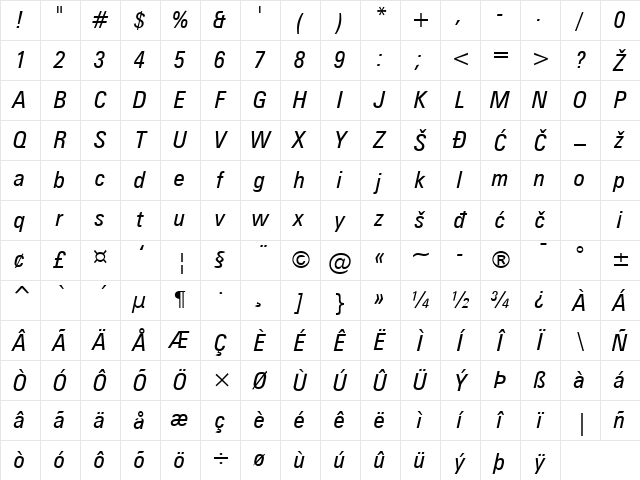
ZurichCond Italic
ZurichCond Family
ZurichCond Italic
Complete ZurichCond Italic glyph index. Displaying only characters natively supported by ZurichCond Italic font.
Design Context for ZurichCond
ZurichCond is a composed and adaptable typeface that performs quietly and consistently across a wide range of design contexts. The slanted form adds forward momentum and visual energy. Its narrow stance lets it pack a punch even in space-constrained designs.
Pro Tip: Use ZurichCond for emphasis, pull quotes, and subheadings where its slanted energy can add rhythm to the layout.